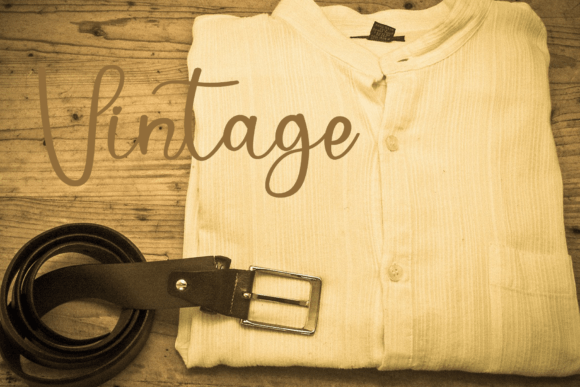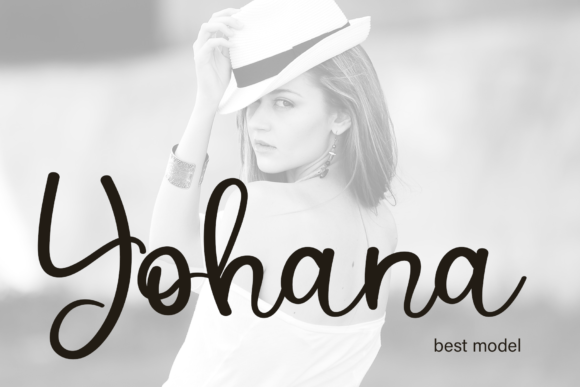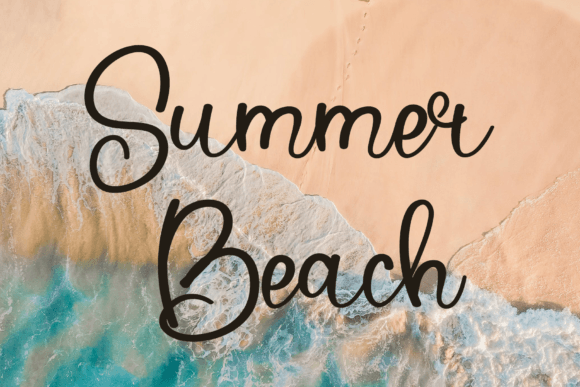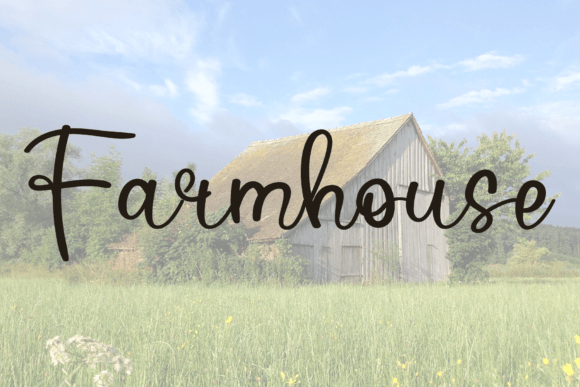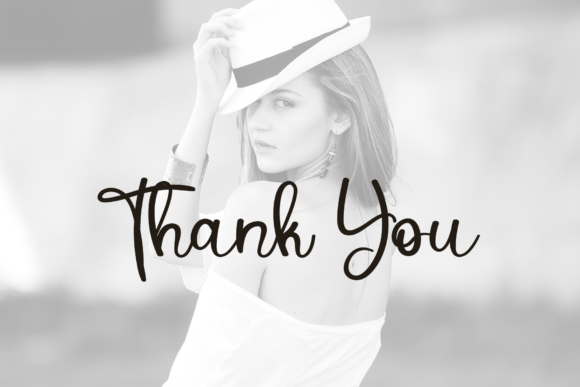
Meet Your New Favorite Font: Casual Font
Have you ever found yourself staring at a blank page, feeling stuck and uninspired? Maybe you’re working on a creative project, but the words just won’t come together. You start to browse through font options, hoping to spark some inspiration. That’s exactly what happened to me when I stumbled upon the Casual Font.
Designed to evoke a sense of coolness and modernity, the Casual Font is perfect for any creative project. Whether you’re crafting handmade cards, designing digital presentations, or working on a personal project, this font is sure to add a touch of personality. Its versatility and charm make it an invaluable asset for designers, allowing them to express themselves in a unique and authentic way.
As you explore the world of typography, you’ll discover that the Casual Font is more than just a font – it’s a tool that can help bring your ideas to life.
Casual Font Key Features
- Unique Characteristics: Casual Font features a relaxed, cursive script with rounded edges and subtle flair, giving it a friendly and approachable feel.
- Font Weight: Casual Font is available in three font weights: Light, Regular, and Bold, allowing designers to choose the perfect weight to suit their design needs.
Casual Font Review
Overall, I think the Casual Font is a decent addition to any designer’s toolkit. Here are some of the things I like about it:
- ✨ It’s easy to read, even at smaller font sizes, which is great for body text or captions.
- ✨ The font has a nice, relaxed feel to it that’s perfect for casual designs, like blogs or social media posts.
- ✨ It’s available in a wide range of weights and styles, making it easy to customize to suit your design needs.
- ⚠️ The font can feel a bit generic, which might make it harder to stand out in a crowded design landscape.
- ⚠️ It’s not ideal for formal or professional designs, as it can come across as too casual.
- ⚠️ The font family is relatively small, so you may not have as many options for customizing the font as you would with other fonts.
Overall, I think the Casual Font is a solid choice for designers who need a friendly, approachable font for their projects. It’s not the most exciting font out there, but it gets the job done.
Tips for Getting the Most Out of Casual Font
For best results, use Casual Font in conjunction with a clean and minimalist design aesthetic. Pair it with simple backgrounds and minimal graphics to create a relaxed and casual atmosphere.
Casual Font is perfect for creating invitations, social media graphics, and other informal design projects. It’s also great for creating a relaxed and approachable tone in blog posts and articles.
Q: Can I customize Casual Font to suit my design needs?
Casual Font is a highly customizable font, and its OpenType features allow for advanced typographic control. You can adjust font styles, weights, and ligatures to create unique and personalized designs. However, be aware that excessive customization may affect the font’s legibility and readability, so use it judiciously.